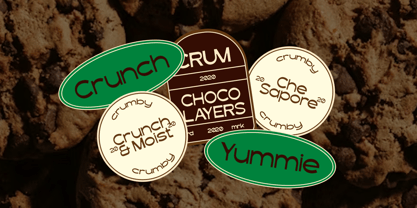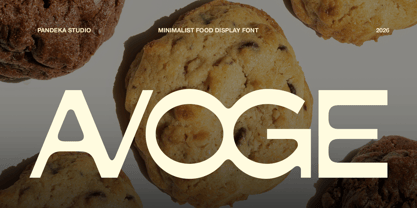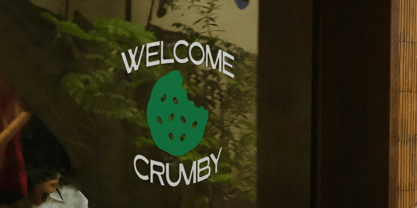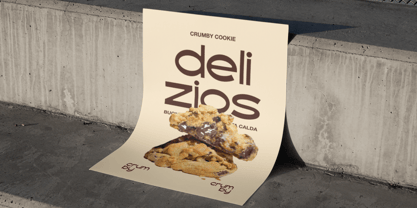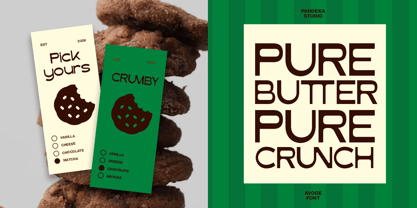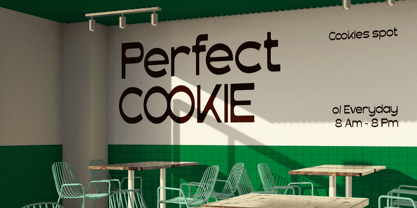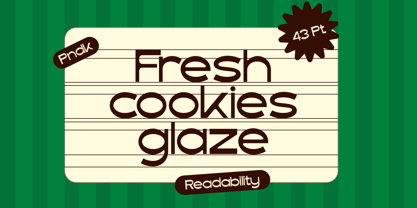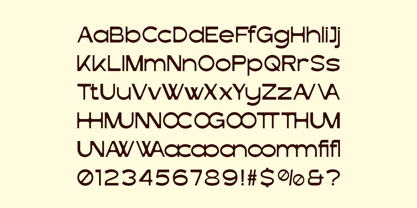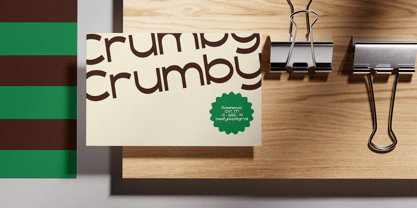
Avoge
La familia tipográfica Avoge fue diseñada por Sagara Nararya y publicada por Pandeka Studio. Avoge contiene 1 estilos. Más información sobre esta familia
Avoge is a modern food display font crafted to bring a fresh, playful, and appetizing character to food-related designs. Its clean geometric shapes, rounded details, and distinctive construction make it perfect for snack branding, cookie packaging, bakery products, restaurant promotions, café identities, menu designs, product labels, signage, and advertising materials. The bold yet friendly appearance helps create strong visual impact while maintaining excellent readability.
To provide greater creative flexibility, Avoge includes 16+ unique ligatures that create smoother and more unique letter combinations. These special features help designers build memorable logos, packaging designs, social media content, headlines, and promotional graphics with a distinctive personality. Whether used for food brands, dessert products, cafés, or modern culinary businesses, Avoge delivers a delicious and eye-catching visual style.
• 1 Style: Regular
• Full Character Set: Uppercase, lowercase, numbers, symbols, and punctuation
• 16+ Unique Ligatures